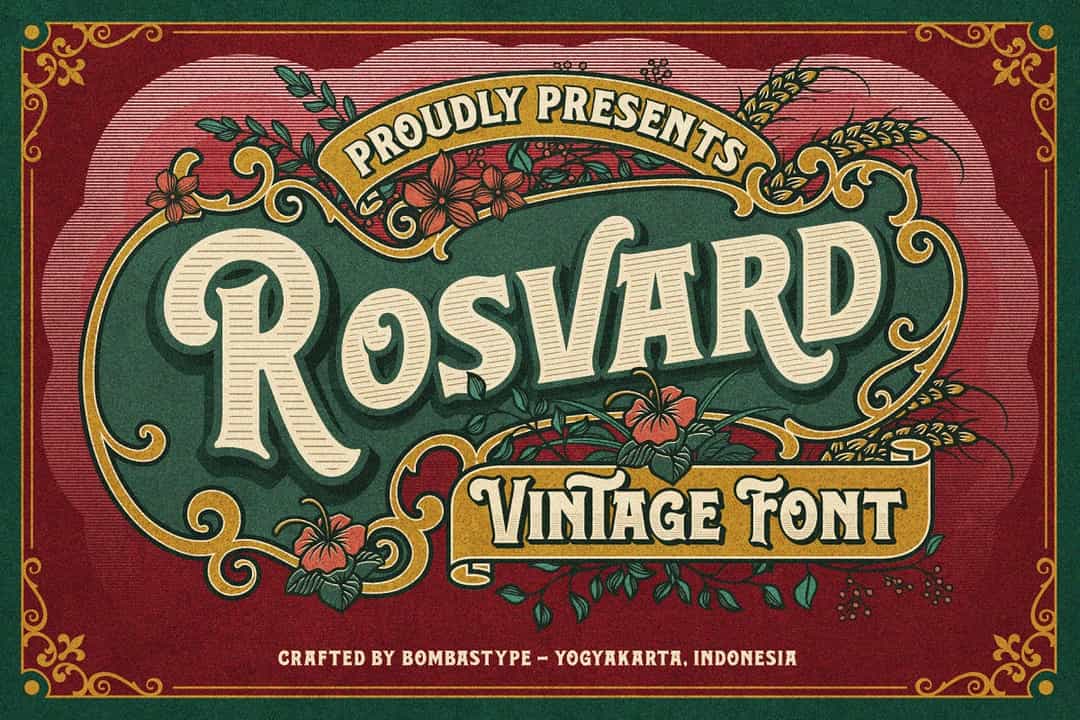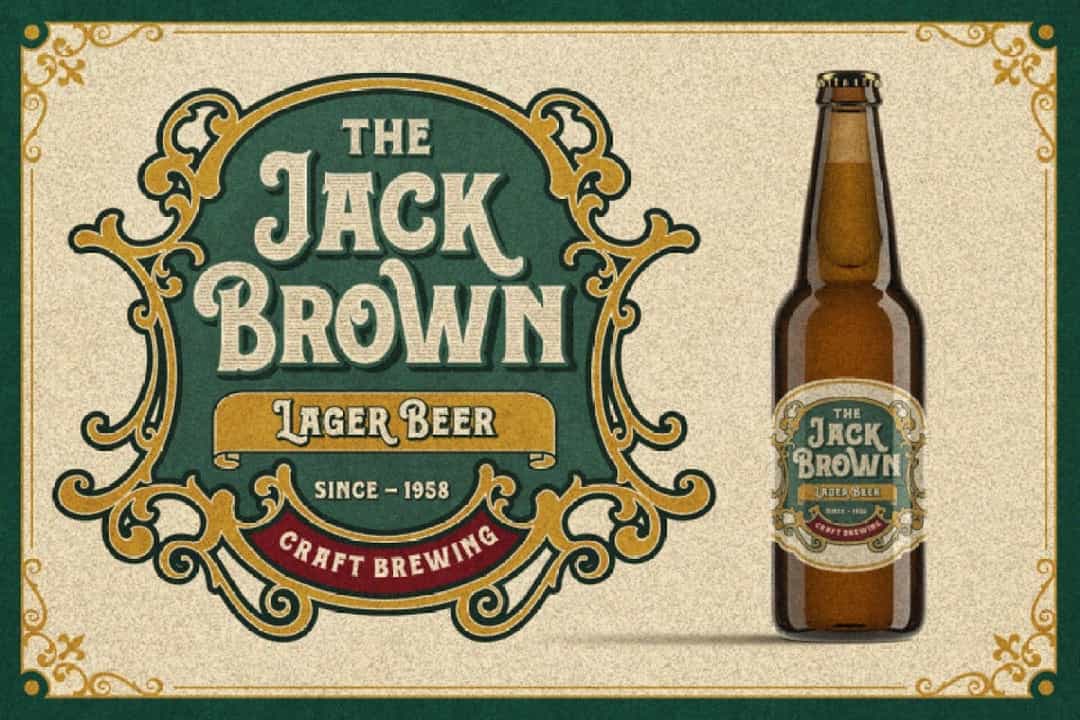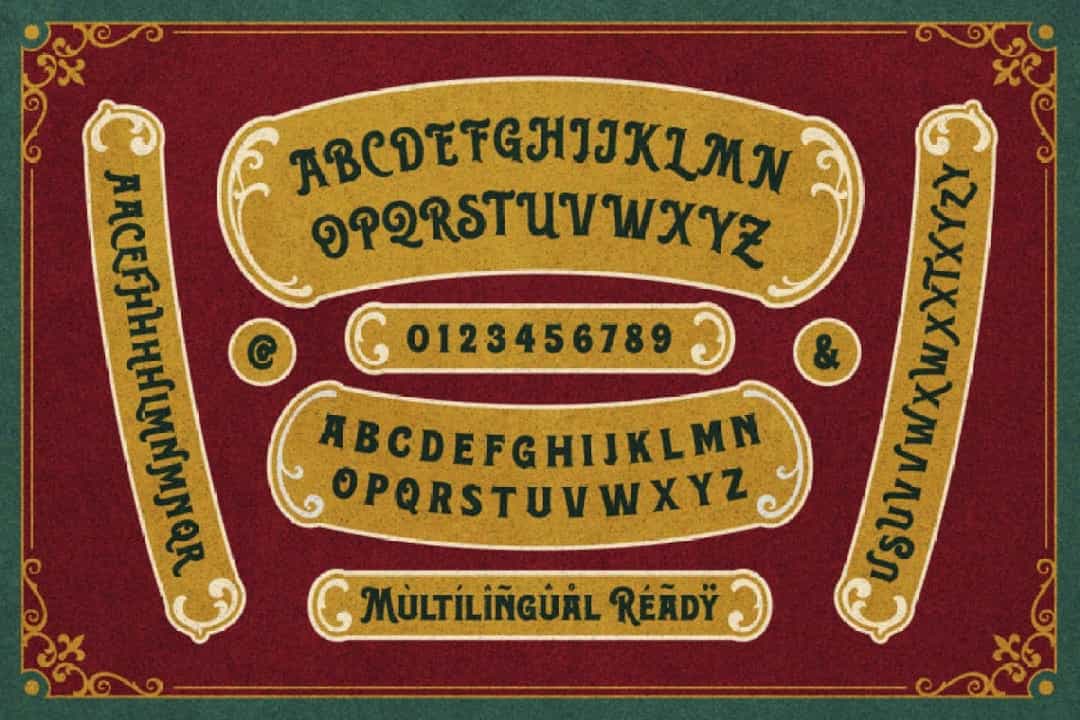
Rosvard Vintage Font stands out with its antique style display font, providing your designs with an eye-catching visual display. Add this font’s thick letters into your designs and watch as it sets them apart from others.